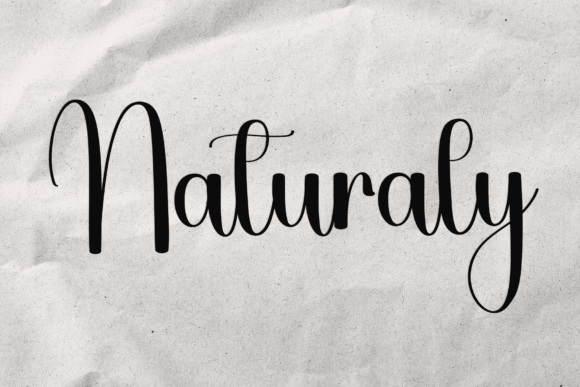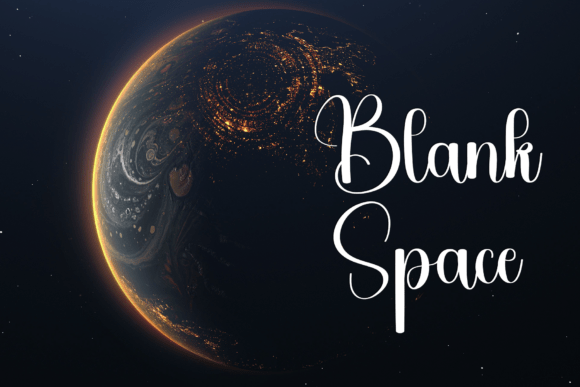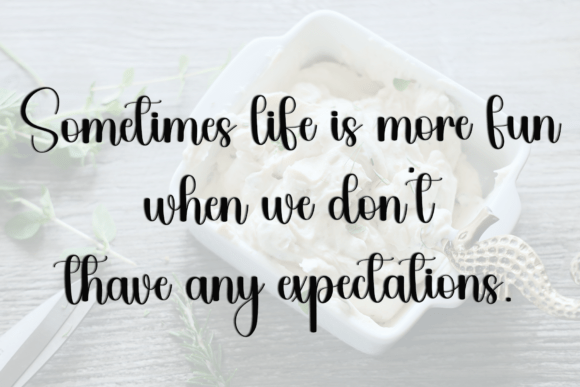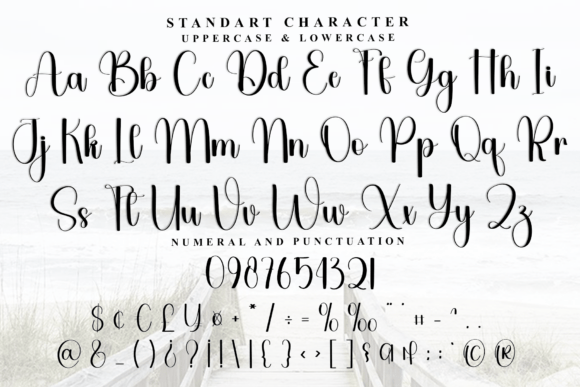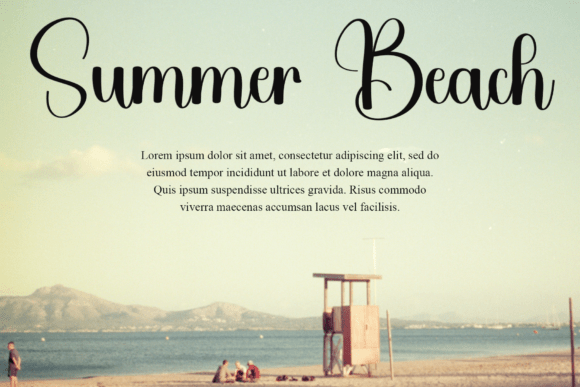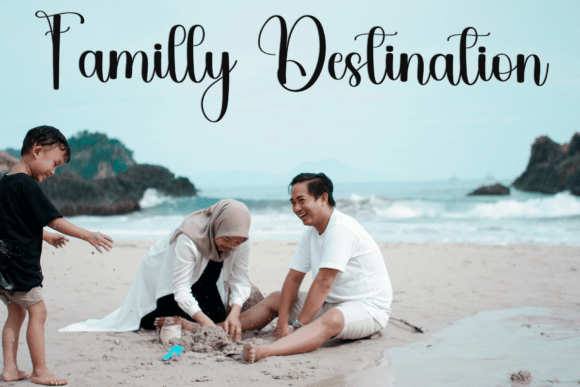
Introducing Beauty Beast Font: The Magical Typeface for Holiday Cheer
The holiday season is upon us, and what better way to spread joy and cheer than with a beautiful, festive font? Look no further than Beauty Beast Font, a merry and decorative typeface that’s perfect for capturing the spirit of the holidays. With its whimsical flair and enchanting elements, this font is sure to add a touch of magic to your designs.
A Festive Font for Holiday Designs
Beauty Beast Font is specifically designed to bring a sense of wonder and enchantment to your holiday-themed projects. Whether you’re creating greeting cards, gift tags, or festive posters, this font is sure to make your designs shine. Its decorative elements and nostalgic ambiance evoke the feeling of a bygone era, making it perfect for those who love traditional holiday designs.
What Makes Beauty Beast Font Special?
So, what sets Beauty Beast Font apart from other fonts? Here are just a few features that make it a standout:
- Decorative elements: Beauty Beast Font features a range of decorative elements, including intricate swashes and flourishes, that add a touch of elegance and sophistication to your designs.
- Whimsical flair: This font has a playful, whimsical feel that’s perfect for capturing the magic and wonder of the holiday season.
- PUA encoded: Beauty Beast Font is PUA (Private Use Area) encoded, which means you can access all of the amazing glyphs and ligatures with ease. This makes it simple to create beautiful, intricate designs without needing to learn complex font editing software.
Beauty Beast Font is perfect for designers and crafters who want to add a touch of holiday cheer to their projects. Whether you’re creating:
- Greeting cards: Add a personal touch to your holiday cards with this beautiful, festive font.
- Gift tags: Make your gifts stand out with custom gift tags featuring Beauty Beast Font.
- Holiday posters: Create eye-catching posters and flyers that capture the spirit of the holiday season.
- Digital crafts: Use Beauty Beast Font to create digital crafts, such as printable art and SVG files.
Tips for Using Beauty Beast Font
Here are a few tips for getting the most out of Beauty Beast Font:
- Experiment with sizes: Beauty Beast Font looks great in a range of sizes, from small and delicate to large and bold.
- Mix and match: Combine Beauty Beast Font with other fonts to create a unique and eye-catching look.
- Play with colors: This font looks great in a range of colors, from traditional holiday colors like red and green to more modern shades.
Beauty Beast Font is a magical, festive typeface that’s perfect for capturing the spirit of the holiday season. With its decorative elements, whimsical flair, and PUA encoding, this font is sure to add a touch of enchantment to your designs. Whether you’re a designer or crafter, Beauty Beast Font is a must-have for anyone looking to create beautiful, holiday-themed projects. So why wait? Download Beauty Beast Font today and let the magic begin!